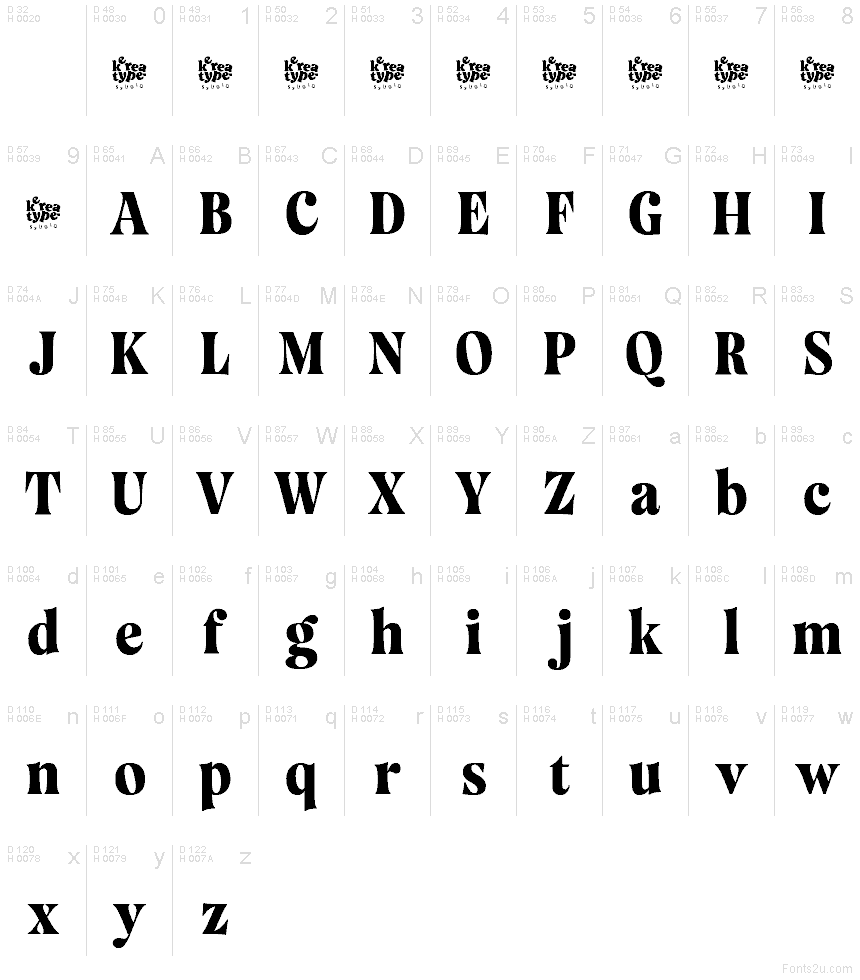
Mazaeni Demo Medium
Mazaeni Medium by Kereatype Studio is a free serif font. Built within the Mazaeni family, it stands out for sculpted wedge serifs, bulb-like terminals, and tight rhythm that feels inky and deliberate. The thick-to-thin flow creates a dramatic silhouette, with compact counters that add weight without feeling clumsy—great when you want elegance with bite.
Using Mazaeni Medium, headlines snap into focus on fashion mastheads, boutique logos, poster titles, editorial spreads, book jackets, and premium packaging. This free font shines when set large; add a touch of tracking for subheads. For balance, pair it with a quiet grotesk or neutral humanist sans to let the serif’s character lead.